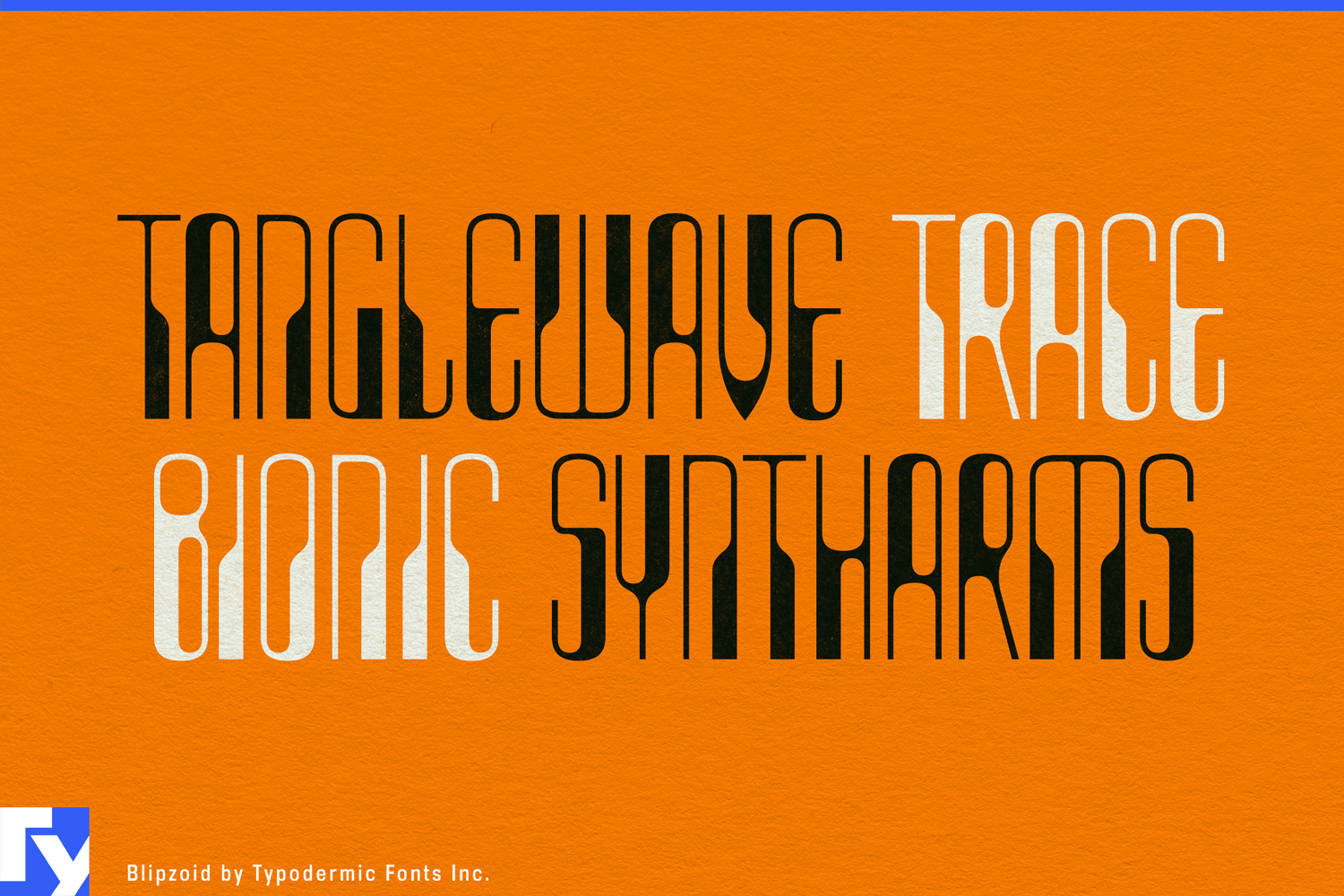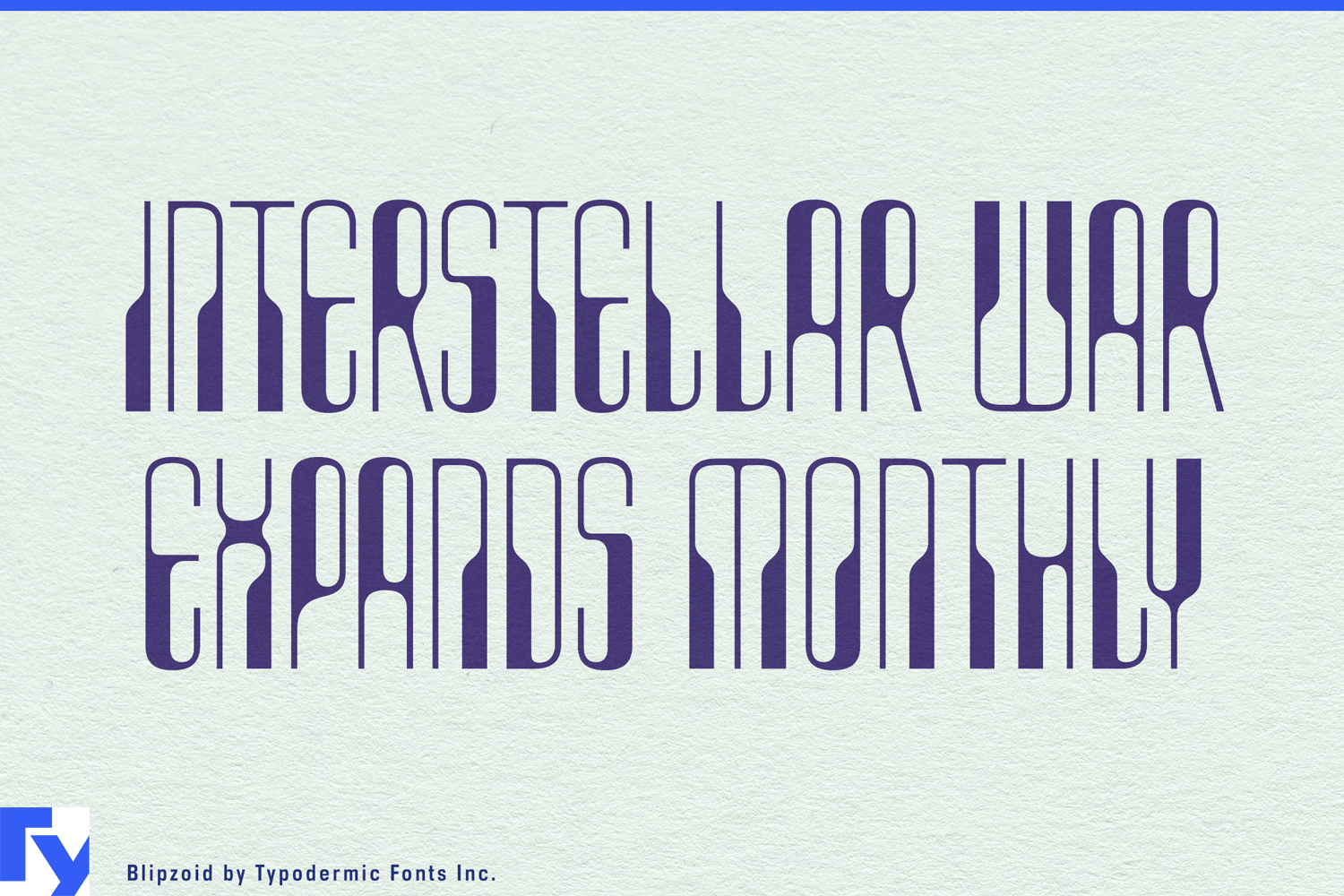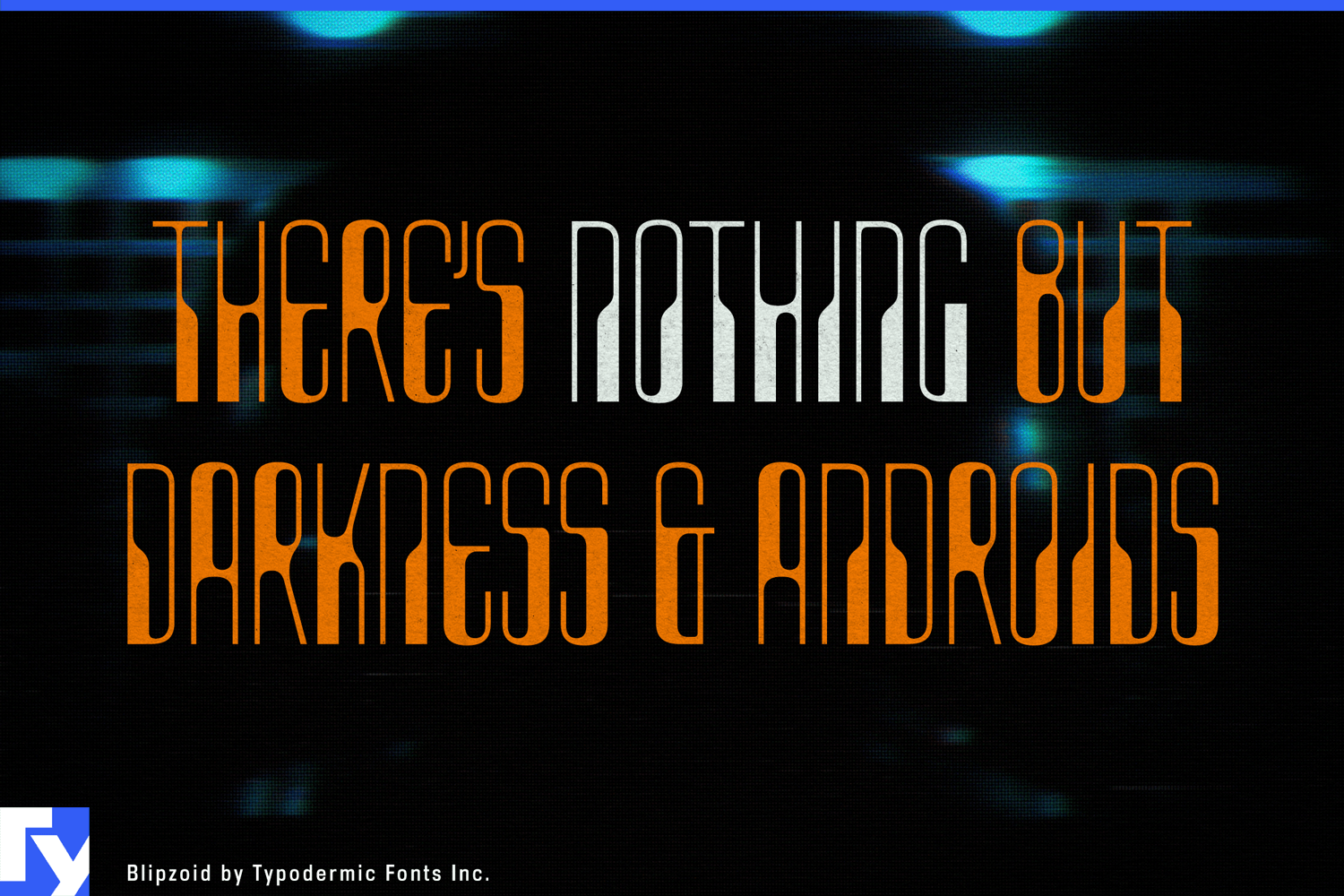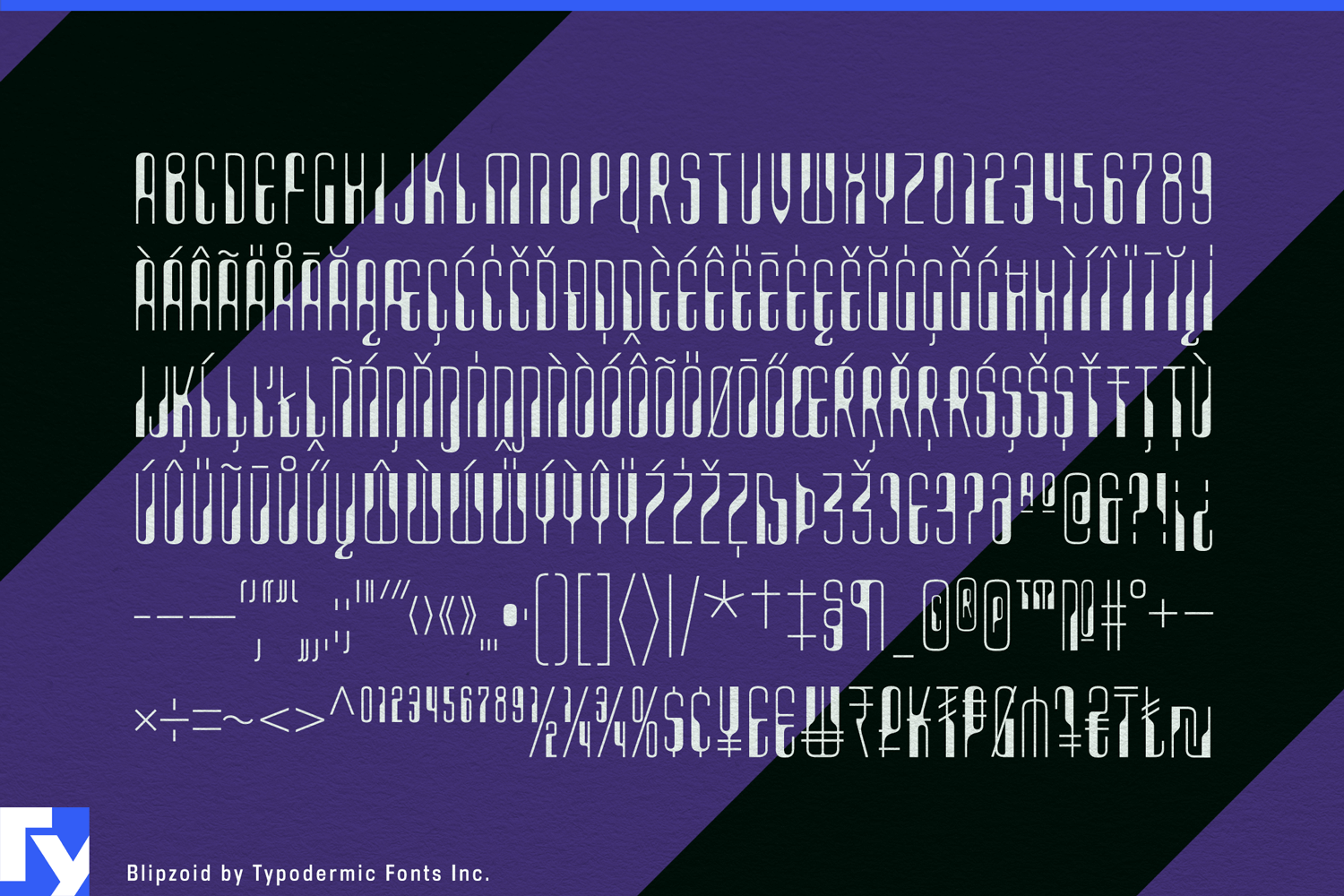
About Blipzoid
Step into the avant-garde world of Blipzoid—a typeface that catwalks effortlessly between the opulent glamour of art deco and the audacious allure of 1960s sci-fi. This compact display font is a sartorial statement in letterform, weaving together…